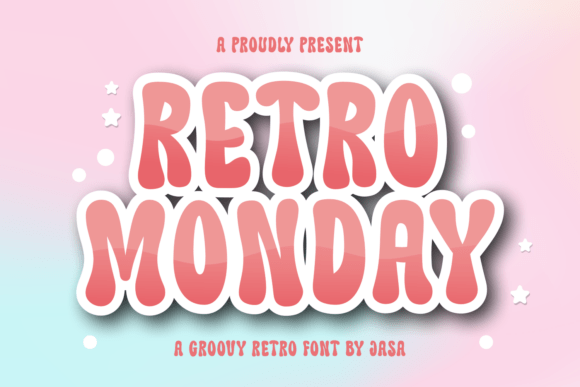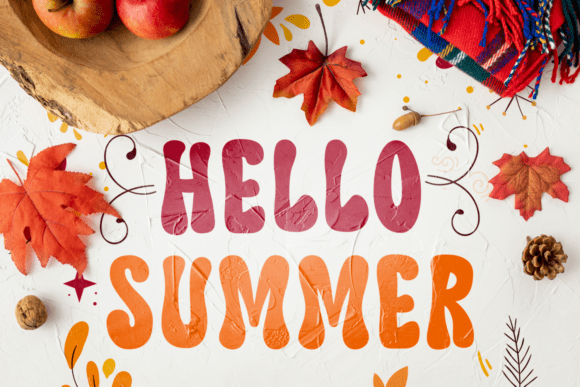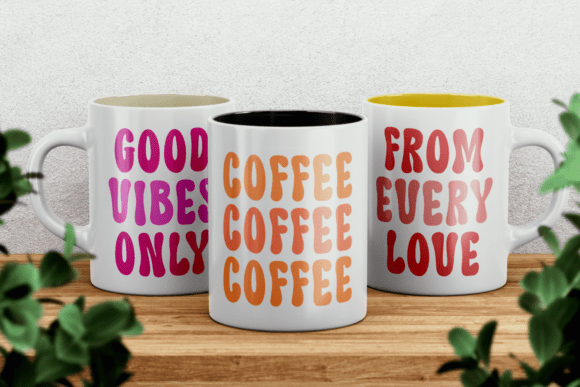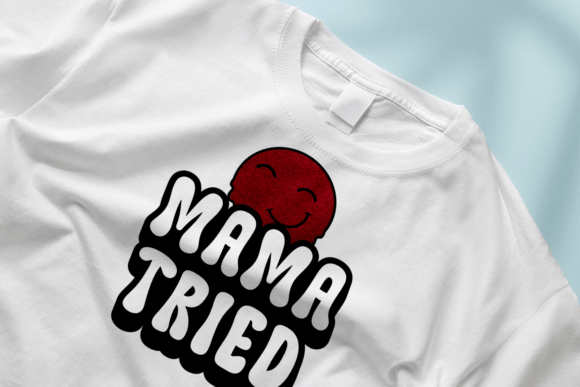
Retro Monday Font
About the Retro Monday Font
Explore the possibilities with Retro Monday Font, a font that offers both beauty and functionality. Retro Monday is a bold and bubbly font full of nostalgic charm. Inspired by 70s groovy vibes, this typeface features curvy, playful letterforms that bring a fun and cheerful mood to any design. Perfect for retro posters, t-shirt designs, branding, social media graphics, and more—Retro Monday adds a funky twist to your creative projects.
Retro Monday’s playful energy makes it ideal for headlines, short-form text in posters, and branding projects needing a fun, approachable feel. It works exceptionally well for packaging of products targeting younger demographics or for social media campaigns with a retro aesthetic. However, its bold curves and relatively large x-height make it less suitable for body text or UI elements where readability over long stretches is crucial.
Consider pairing Retro Monday with a clean sans-serif like Open Sans for a balanced contrast, or a more geometric sans-serif for a modern twist. A classic serif like Garamond can add sophistication and visual weight, while a simple script font like Pacifico could enhance the nostalgic vibe.
The overall personality is undeniably cheerful and retro, lending itself to brands focused on fun, entertainment, or nostalgia—think vintage clothing lines, ice cream parlors, or music festivals.
Retro Monday Font Usage Examples
Retro Monday Font Example